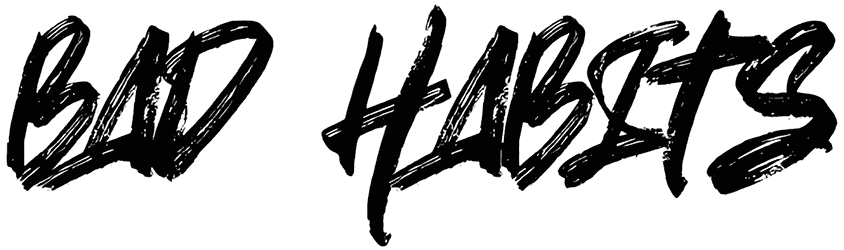
Bad Habits Font
Bad Habits is an all-caps script font that comes with angular letters and looks perfectly matched with a wide set of creative ideas, such as movie posters, stickers, product packaging, billboards, or video game brochures.